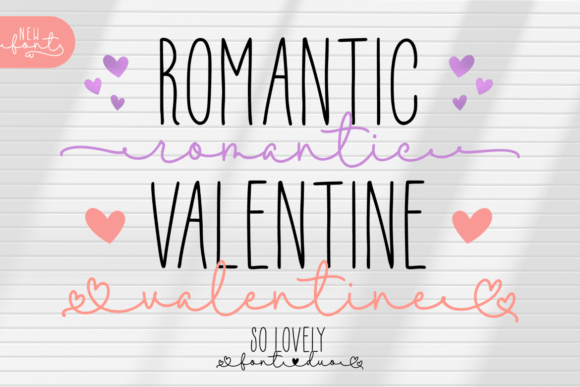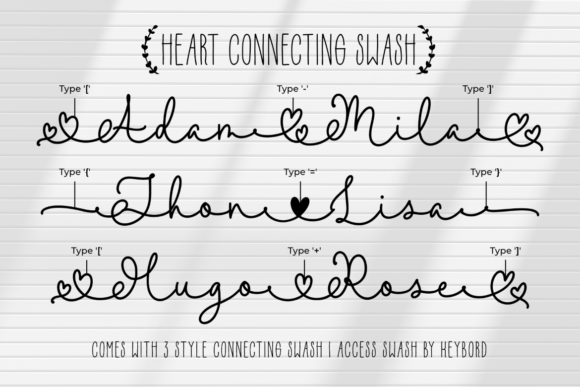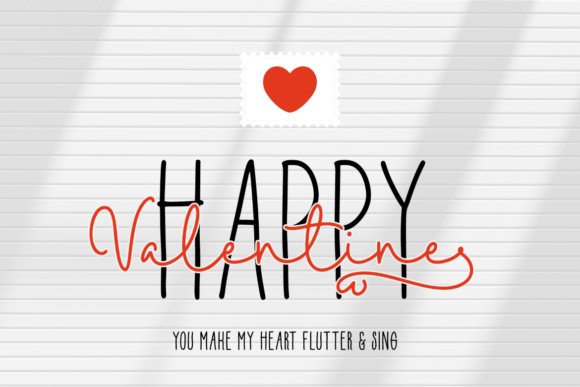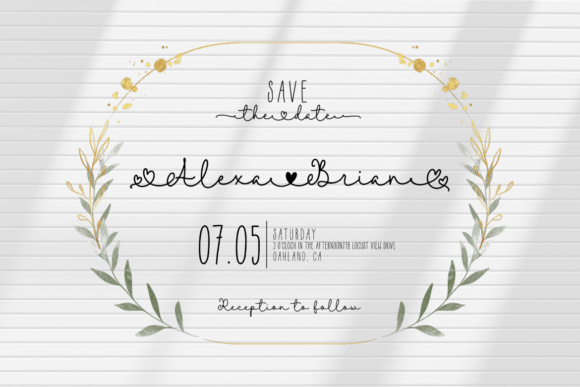
Romantic Valentine Duo Font
About the Romantic Valentine Duo Font
Let us introduce you to Romantic Valentine Duo Font, where timeless design meets modern craftsmanship. Meet Romantic Valentine, the perfect font duo for adding love-filled charm to your designs. This adorable set includes a graceful script and a playful sans serif, ideal for Valentine’s themes, weddings, birthdays, quotes, and any project that needs a loving touch. It’s easy to use and supports multiple languages, and you can access extra swashes effortlessly using your keyboard. Spread the love with Romantic Valentine.
This duo excels in projects requiring a touch of romantic whimsy. Ideal applications include wedding invitations, branding for boutique businesses, social media graphics, and short-form content such as quotes or product descriptions. However, the script font’s delicate nature makes it unsuitable for body text or lengthy paragraphs. Its playful sans-serif partner fares better in slightly longer text blocks but is still best suited to shorter sections. Avoid using it in user interfaces or situations demanding high readability.
For optimal visual balance, pair the script with a clean, modern sans-serif like Montserrat for a contemporary feel, or a classic serif like Garamond for a more traditional aesthetic. The sans-serif component pairs well with geometric sans-serifs like Futura for a bolder, more graphic look, or with a slightly rounded sans-serif like Open Sans for a softer, approachable contrast.
The overall personality is cheerful and romantic, but maintains a level of sophistication suitable for upscale branding. The contrast between the elegant script and friendly sans-serif provides versatility, allowing for both playful and refined expressions within the same project.